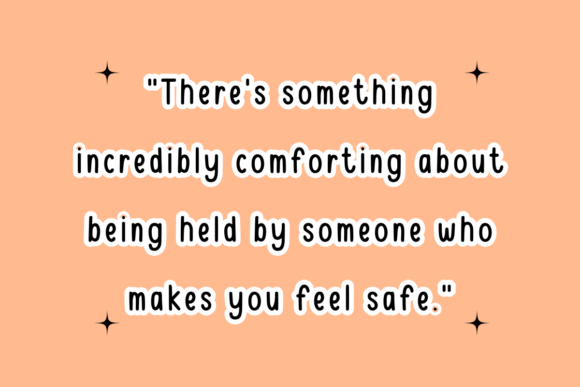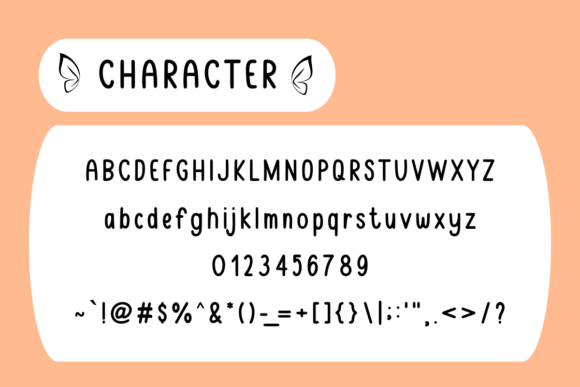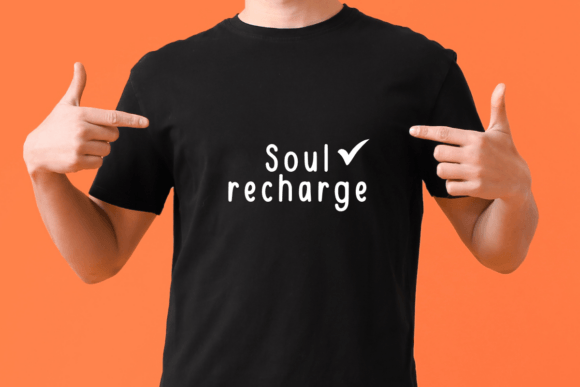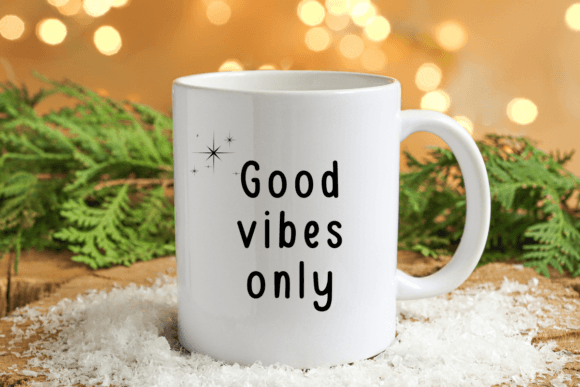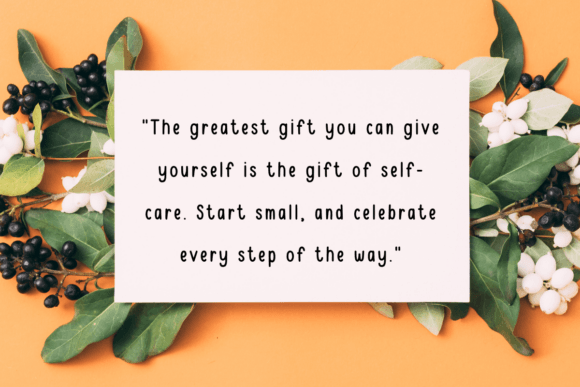
Couple Cuddling Font – Free Download
Introduction to Couple Cuddling Font
Couple Cuddling is a cozy sans serif font with soft, rounded edges and a playful aesthetic.
Perfect for romantic designs, greeting cards, and sweet branding, this font conveys love, warmth, and a lighthearted vibe in every detail .
Key Features of Couple Cuddling Font
Why Choose Couple Cuddling Font?
Couple Cuddling Font offers exceptional quality and versatility, making it a valuable addition to your design toolkit. Whether you’re creating for personal projects or commercial use, Couple Cuddling Font delivers professional results.